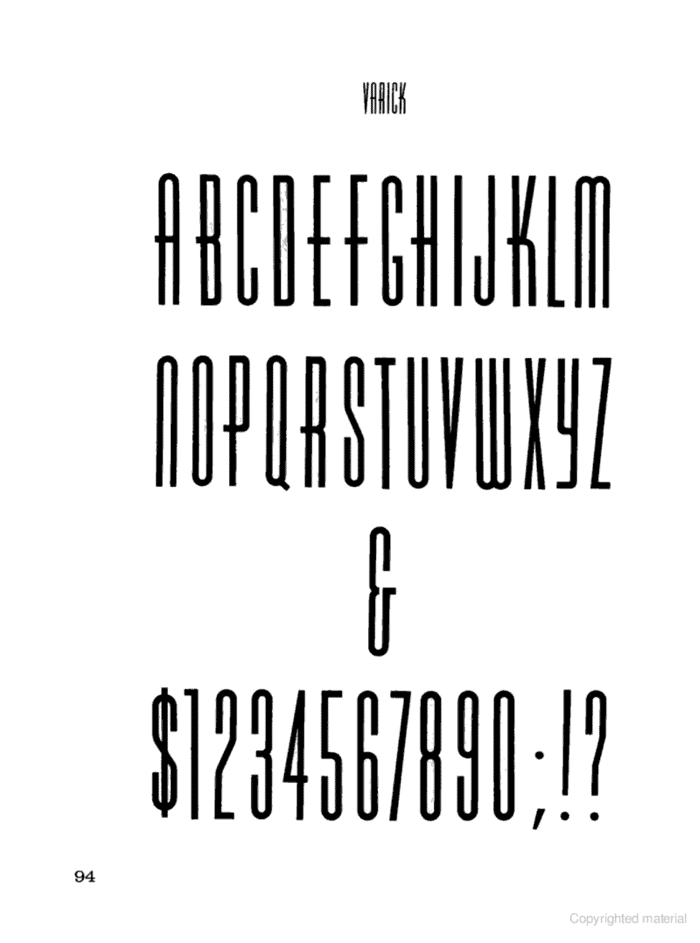
Varicka Font
This was developed from a previously un-digitized font specimen named "Varick" on page 94 in Dan Solo's Dover book "Decorative Condensed Alphabets". Punctuation and Accented characters were not displayed in the specimen, but have been added.